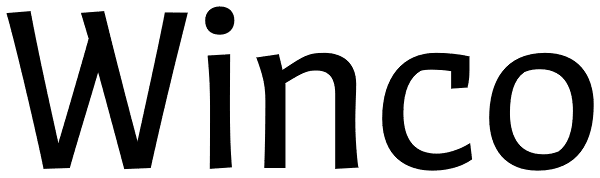
Winco
Winco family can be labelled a humanist sans-serif, but in spirit it is more closely related to that rather rare typeface category called ‘glyphic’ or ‘incise’. While conceiving Winco, Ramiro Espinoza studied the work of the masters of postwar book...